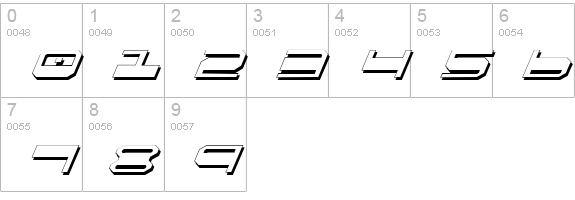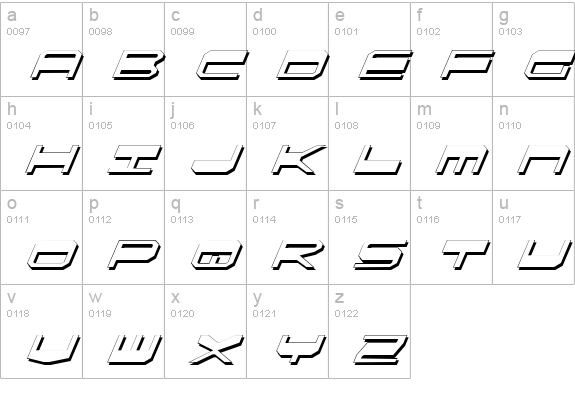
QuickGear Shadow Italic is a distinctive, italic variant in the QuickGear typeface family \xE2\x80\x94 well suited to design and typography projects.
QuickGear Shadow Italic font is a stylish and modern typeface that adds a touch of elegance and sophistication to any project. With its slanted and shadowed design, this font exudes a sense of depth and dimension, making it perfect for titles, headings, and logos. Featuring sleek and clean lines, QuickGear Shadow Italic font effortlessly combines contemporary aesthetics with a hint of vintage charm. Its italicized form adds a dynamic and energetic feel, making it ideal for projects that require a sense of movement and excitement. One of the best things about QuickGear Shadow Italic font is that it is completely free to download at FontsMarket.com. This means that you can enhance your designs with this stunning font without having to spend a dime. With just a few clicks, you can access this font and start using it in your projects right away. Whether you are working on a website, a poster, a branding project, or any other design endeavor, QuickGear Shadow Italic font will elevate your work to new heights. Its unique combination of style and versatility makes it a go-to choice for designers looking to make a bold statement. So why wait? Download QuickGear Shadow Italic font today and unleash your creativity!